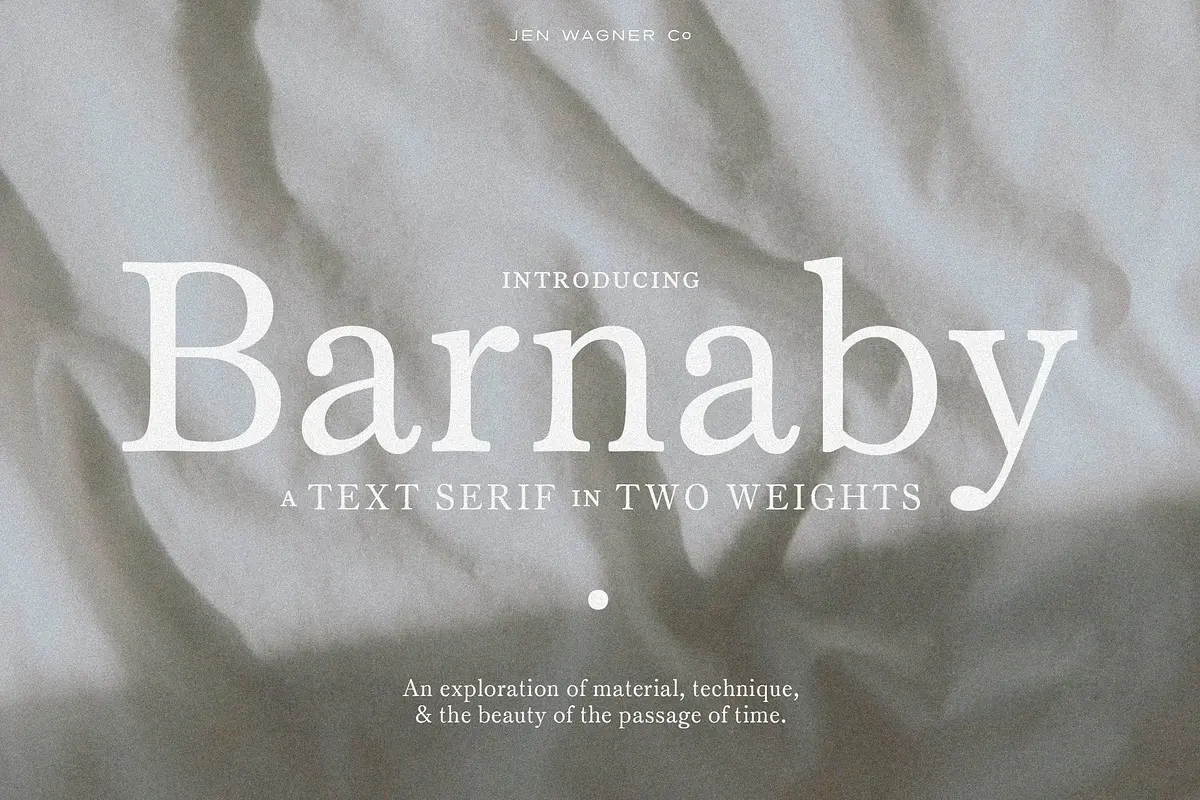
Barnaby | A Minimalist Text Serif Font Free Download is a clean and elegant serif typeface designed for readability and subtle sophistication. Perfect for editorial layouts, websites, branding, and long-form content, this font offers a timeless aesthetic with a modern minimalist twist.
Crafted with precision and balance, Barnaby | A Minimalist Text Serif Font Free Download delivers clarity and elegance in every letterform. Whether you're designing a magazine, a stylish blog, or upscale brand materials, Barnaby brings a refined tone without overpowering your content. Its understated beauty makes it a go-to choice for professionals who value simplicity and structure. Try it today to explore how it complements your next project before investing in a commercial license.